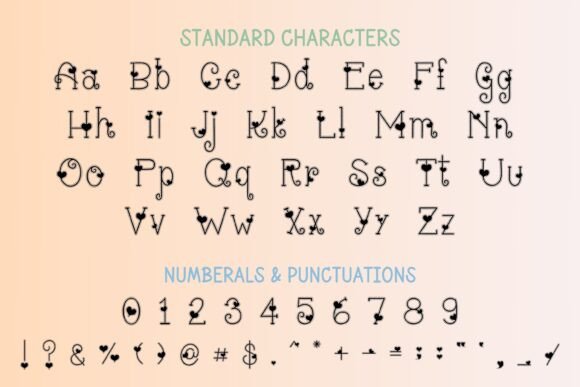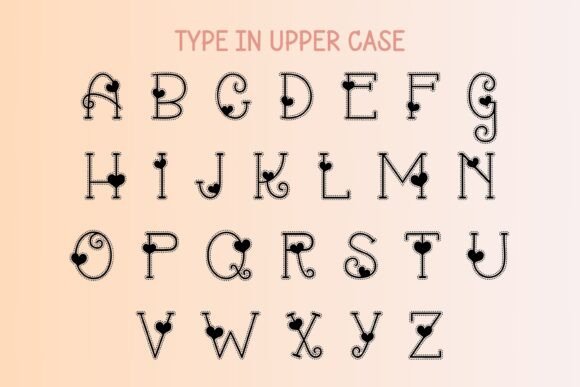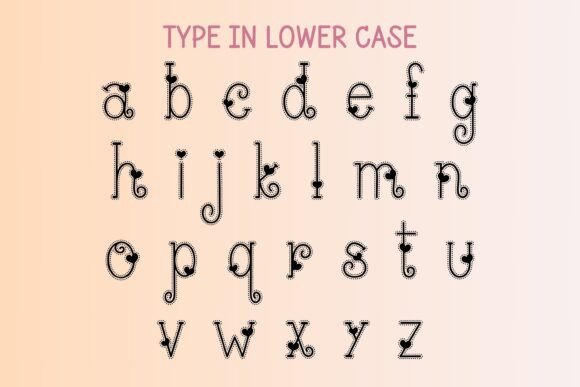
Introduction to Mini Heart II Font Font
Mini Heart II font is a cute decorative Valentine’s Font that is ideal for crafting and perfect for designs that need a playful, cheery accent.
Mini Heart II font suits gift tags, book covers, posters, packaging, merchandise, logotypes, and many more .